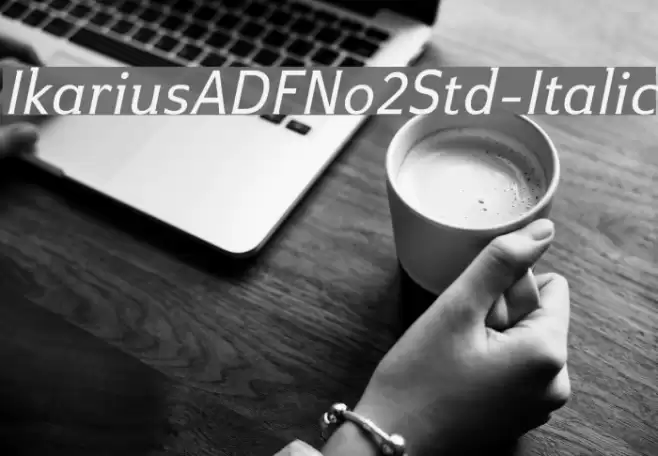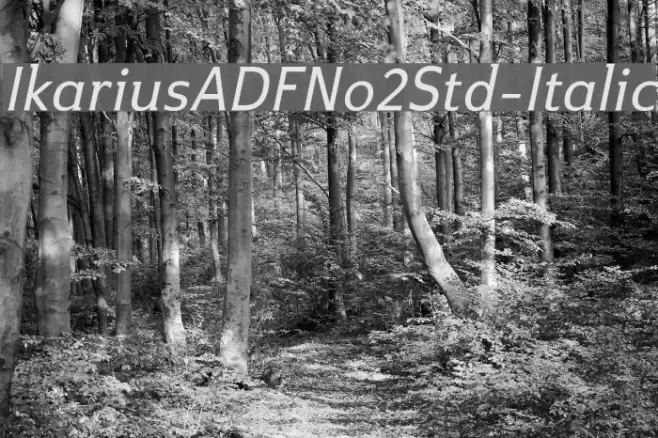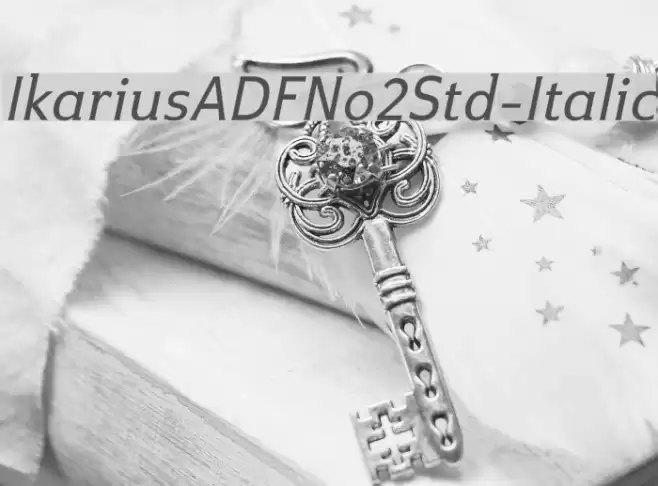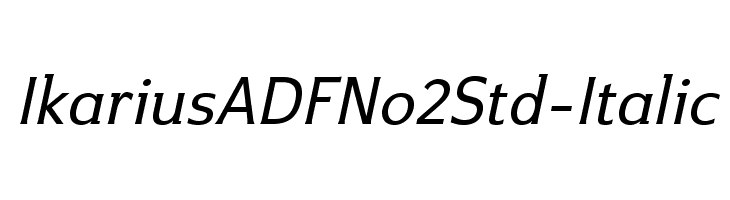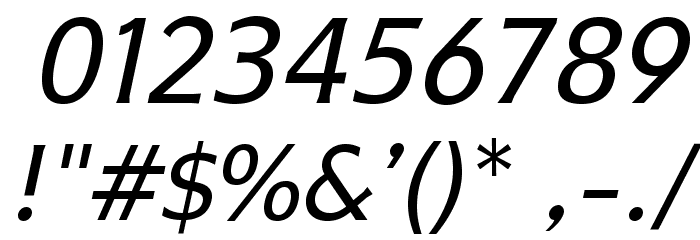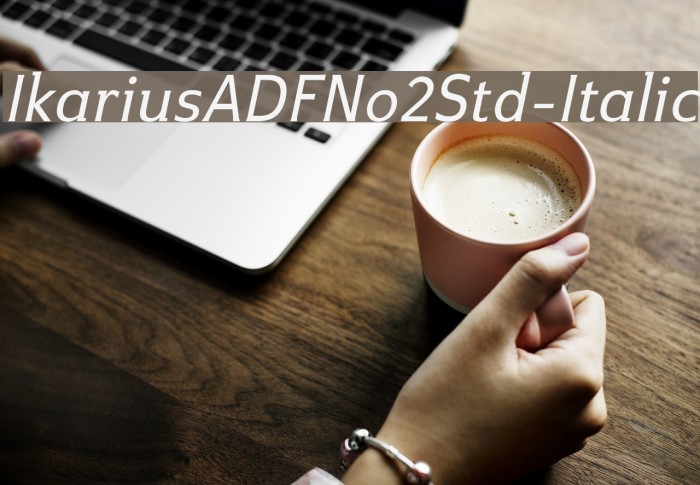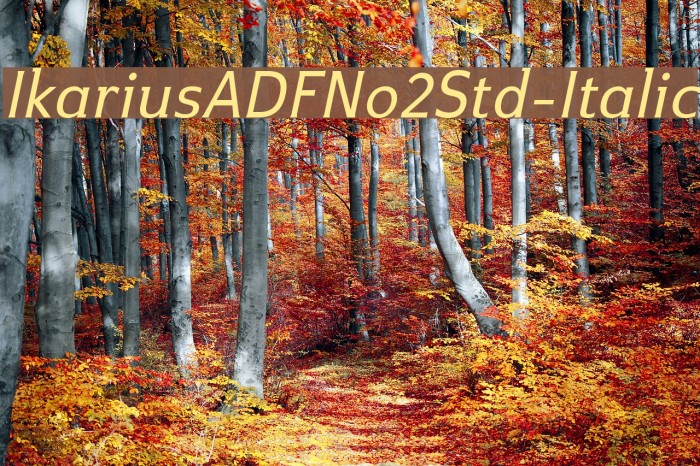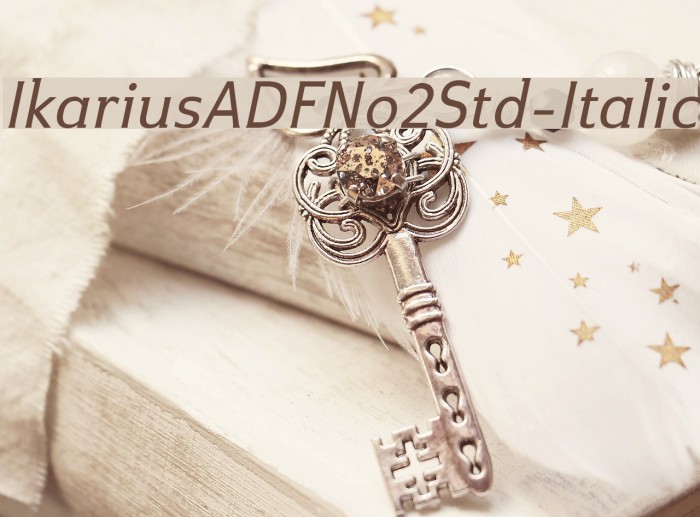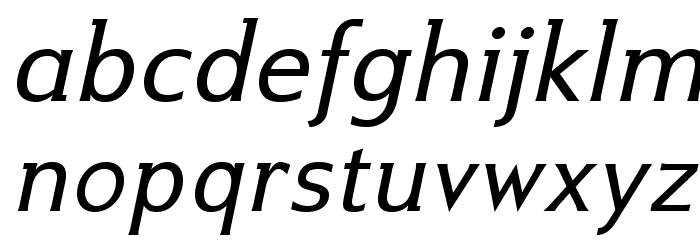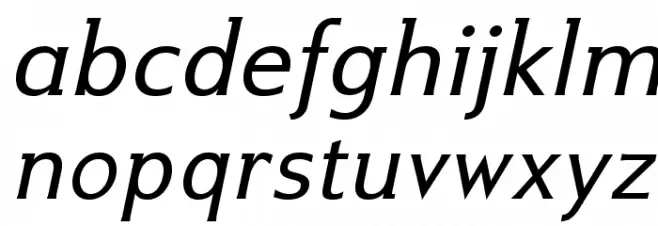
IkariusADFNo2Std-Italic Font
IkariusADFNo2Std-Italic Description
This font features a sleek and modern italic style with a slight slant that adds a dynamic and elegant touch to the text. The characters are well-proportioned, with smooth curves and clean lines that enhance readability. The uppercase letters are bold and commanding, while the lowercase letters maintain a consistent flow, making it suitable for both formal and informal contexts. The numerals are clear and distinct, ensuring easy legibility. Special characters are thoughtfully designed to complement the overall aesthetic, making this font versatile for various applications.
A modern italic font with smooth curves and clean lines, perfect for dynamic text from Uncategorized fonts.
- Proposed Projects: Ideal for branding, editorial design, advertising, and digital media projects.